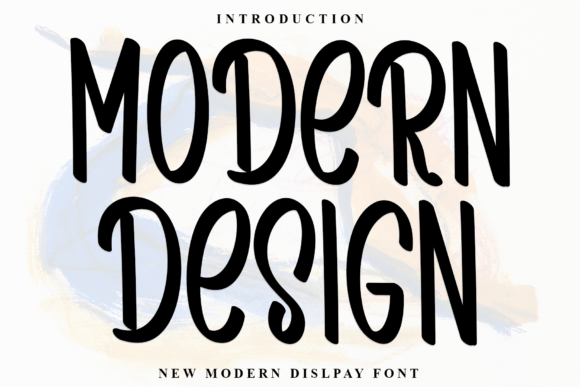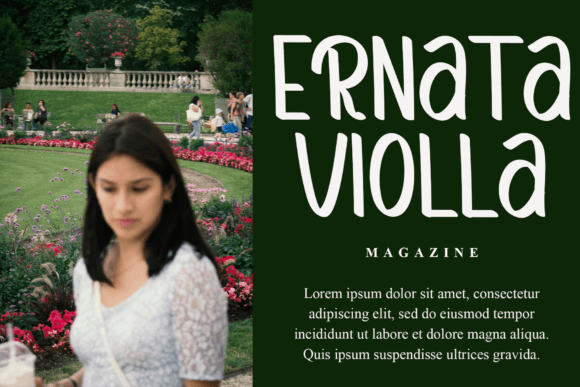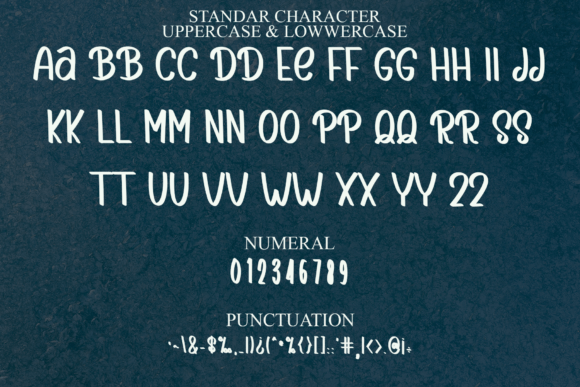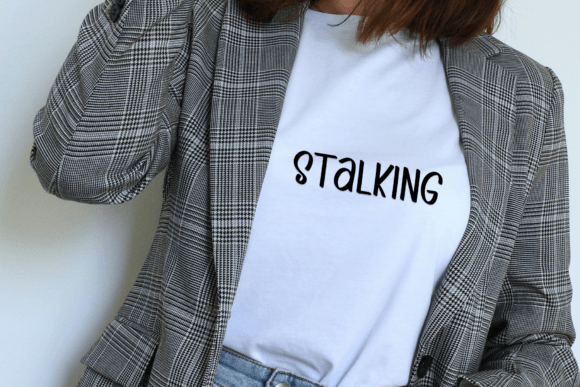
Modern Design Font
About the Modern Design Font
Let us introduce you to Modern Design Font, where timeless design meets modern craftsmanship. Modern Design
is a stylish handwritten font that looks like it was created with a marker. Its casual and playful style makes it great for adding a personal touch to your designs, whether for invitations, posters, or social media!
Its hand-drawn quality makes it ideal for projects requiring a friendly, approachable feel. Consider using it for branding materials for cafes, boutiques, or children’s products, as well as short-form content like social media posts, invitations, and posters. Avoid using it for large bodies of text or UI elements where legibility is paramount.
Modern Design pairs well with clean sans-serif fonts like Open Sans or Lato for a balanced contrast, or a geometric sans-serif such as Montserrat for a more modern feel. For a more playful look, a rounded sans-serif such as Bubblegum Sans could work effectively. Avoid pairing it with overly ornate or highly contrasting typefaces.
The font projects a casual, informal personality, best suited for brands that emphasize authenticity and approachability. Its marker-like texture gives it a handcrafted look that works well for emphasizing a personal touch.
Modern Design Font Usage Examples
Modern Design Font Example